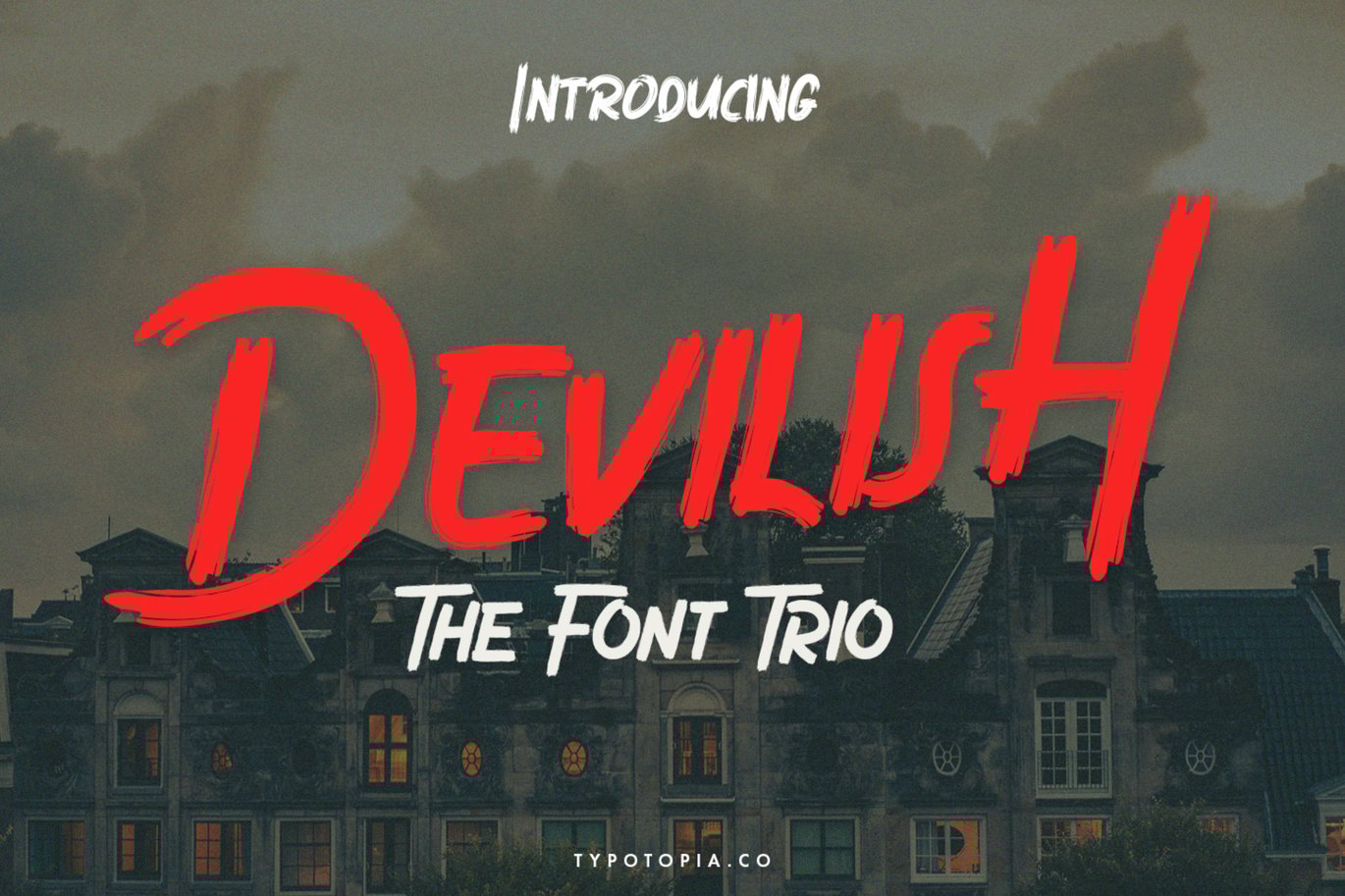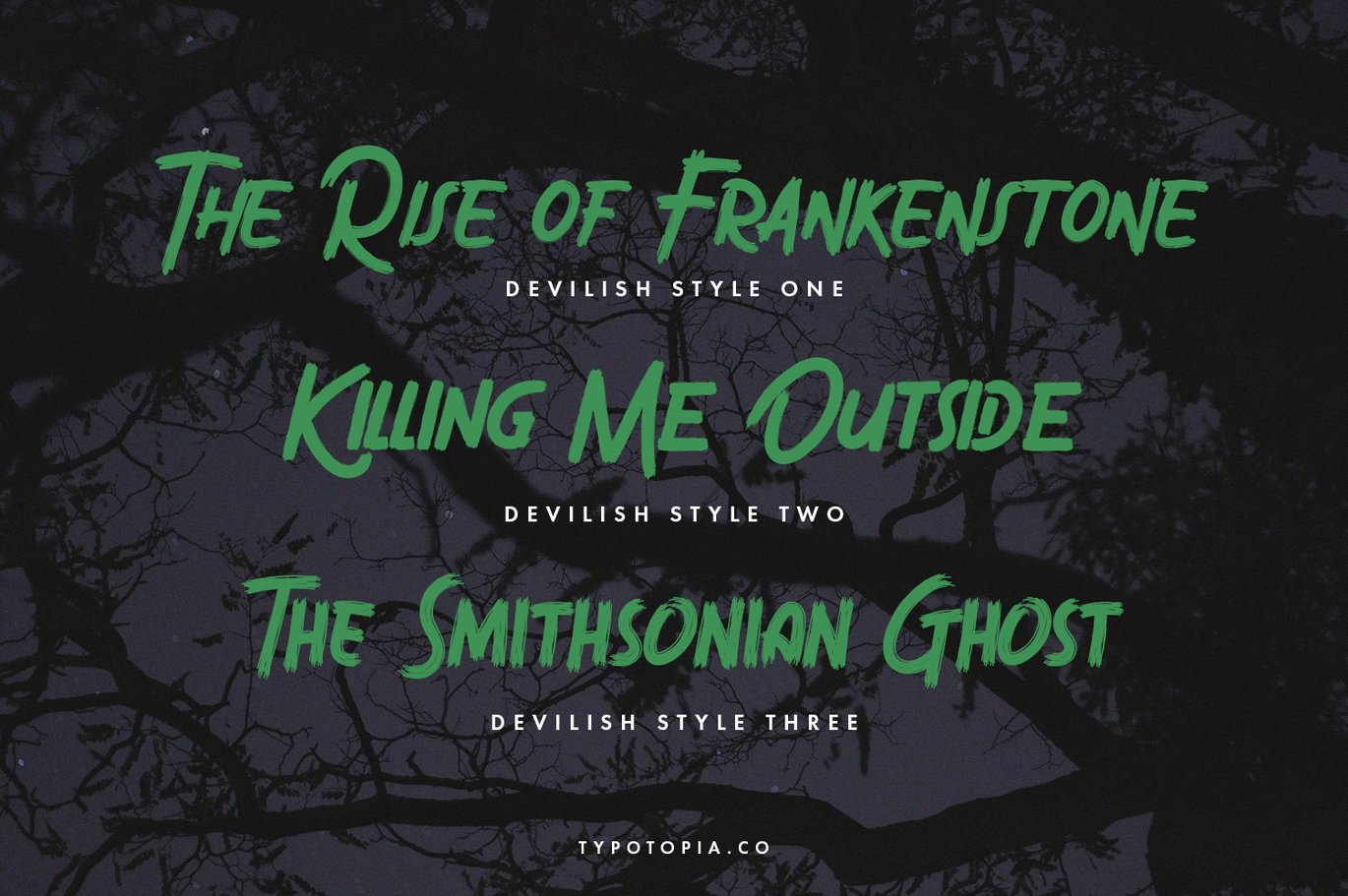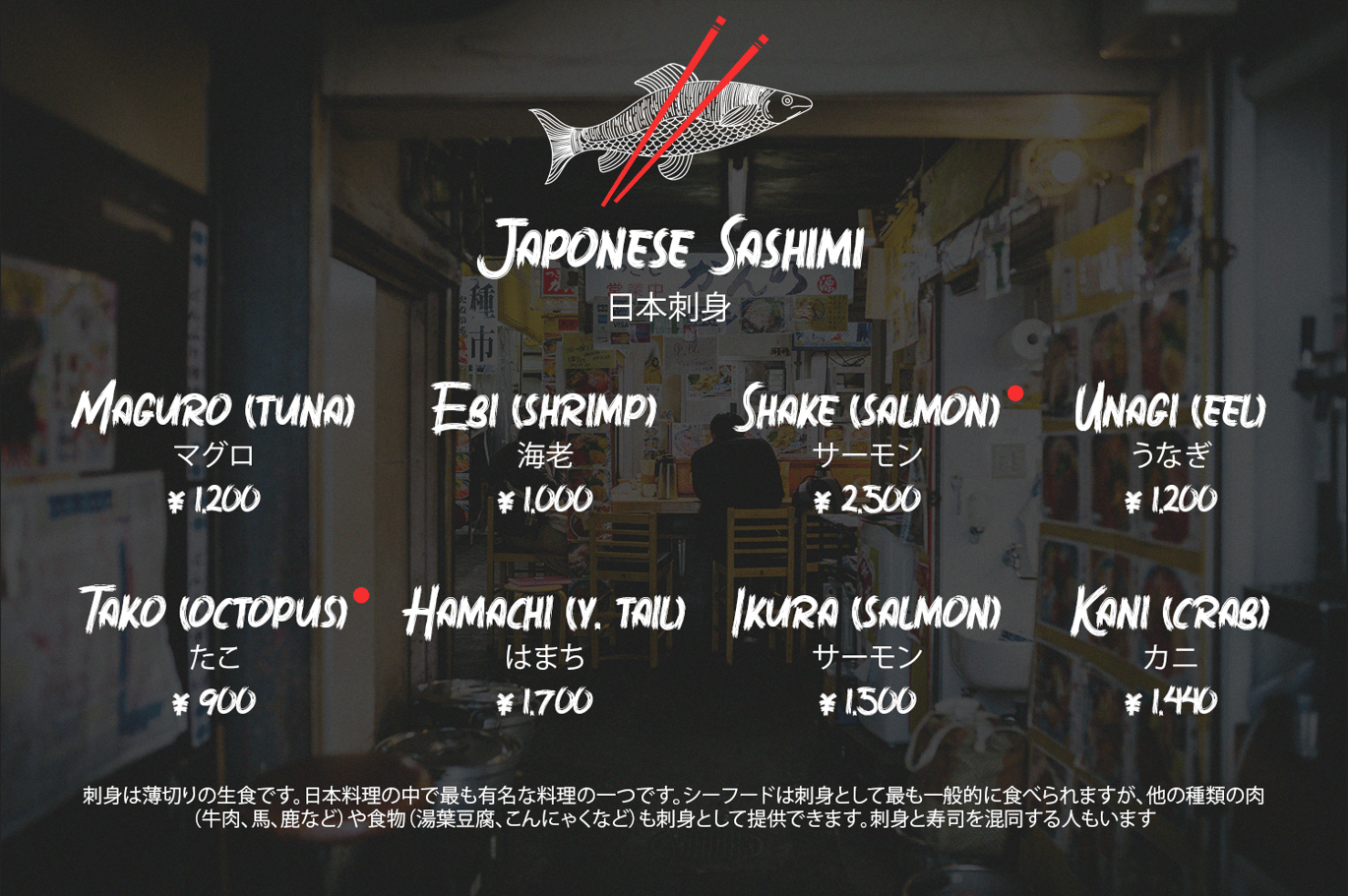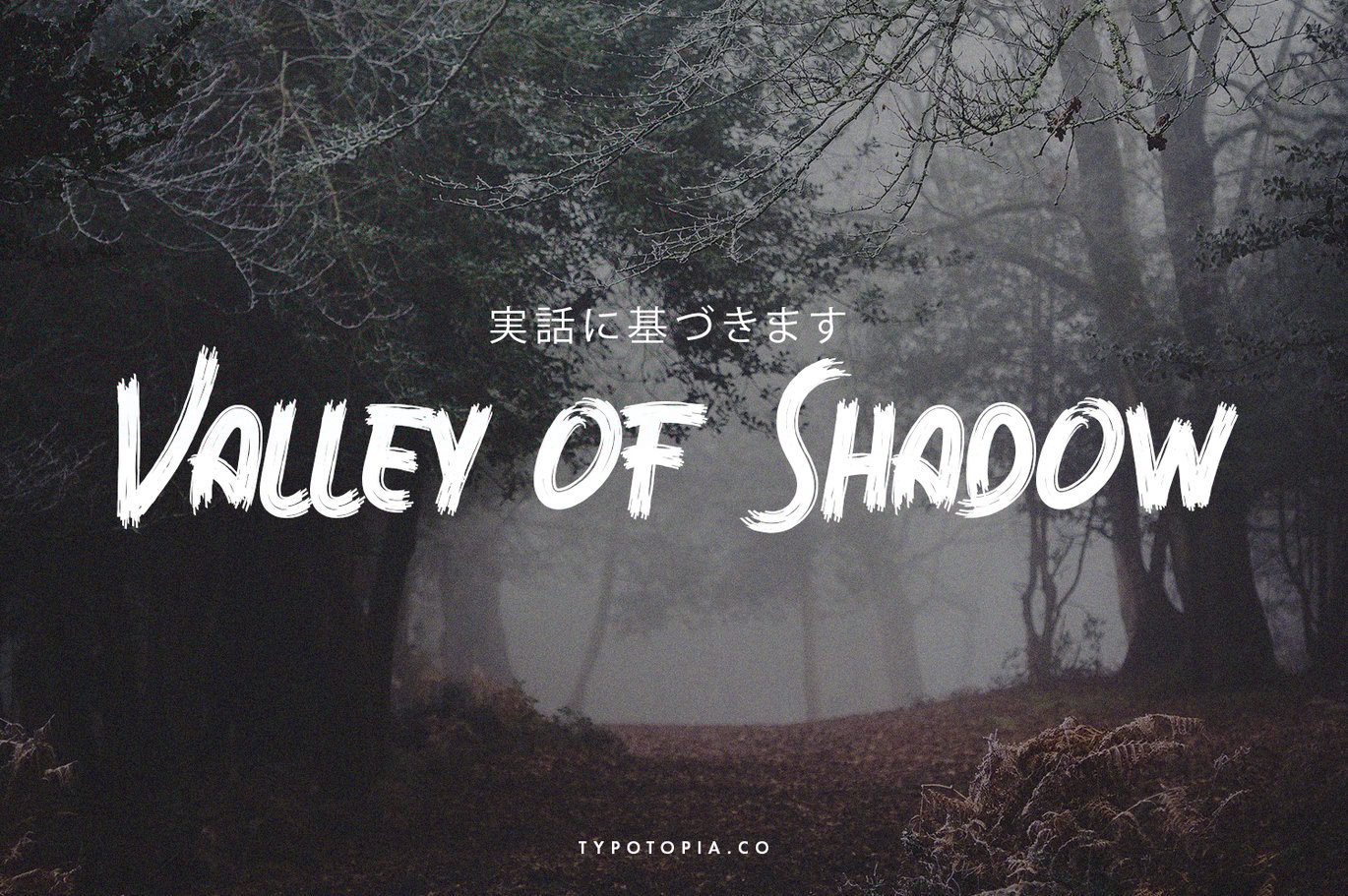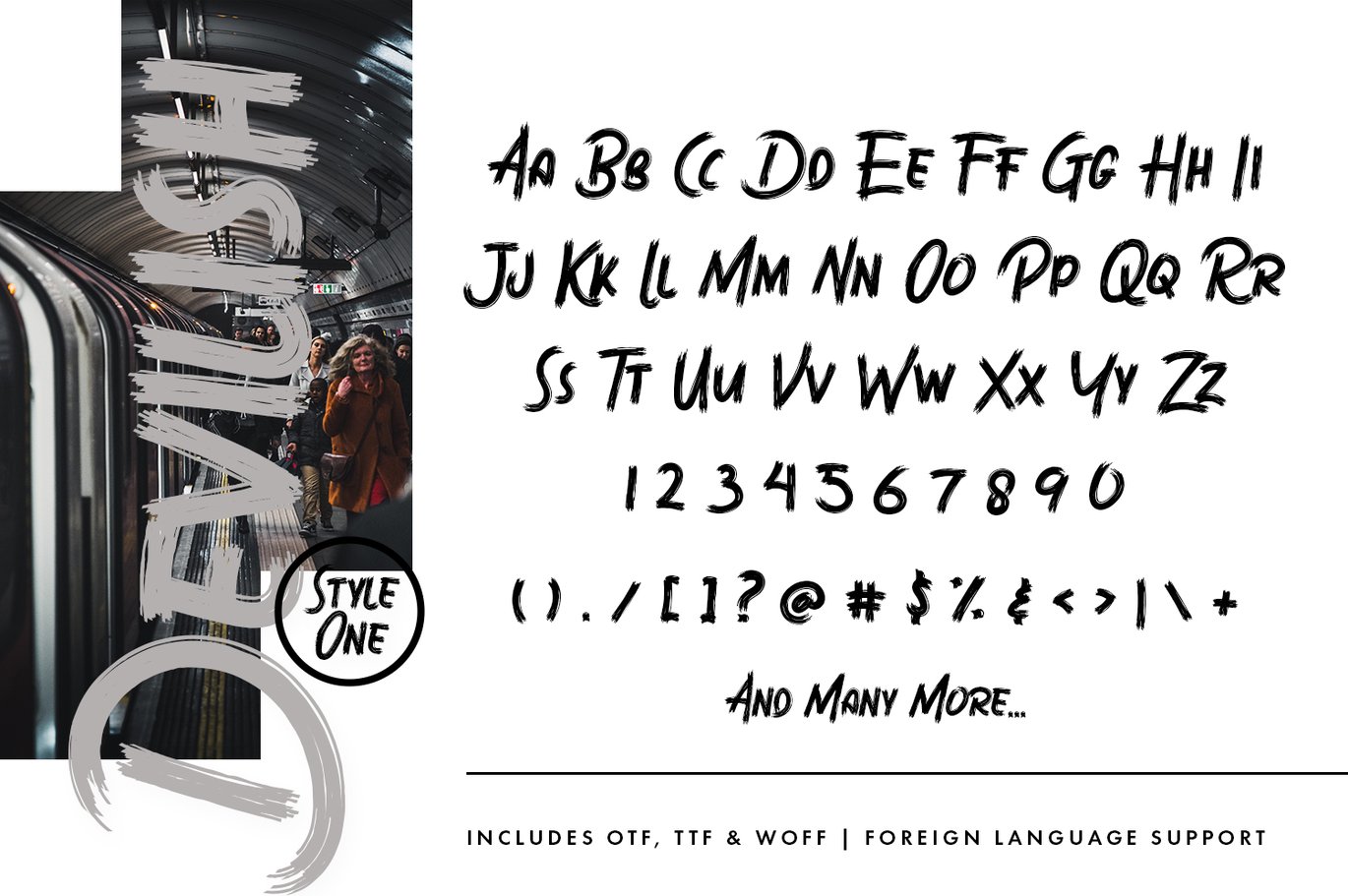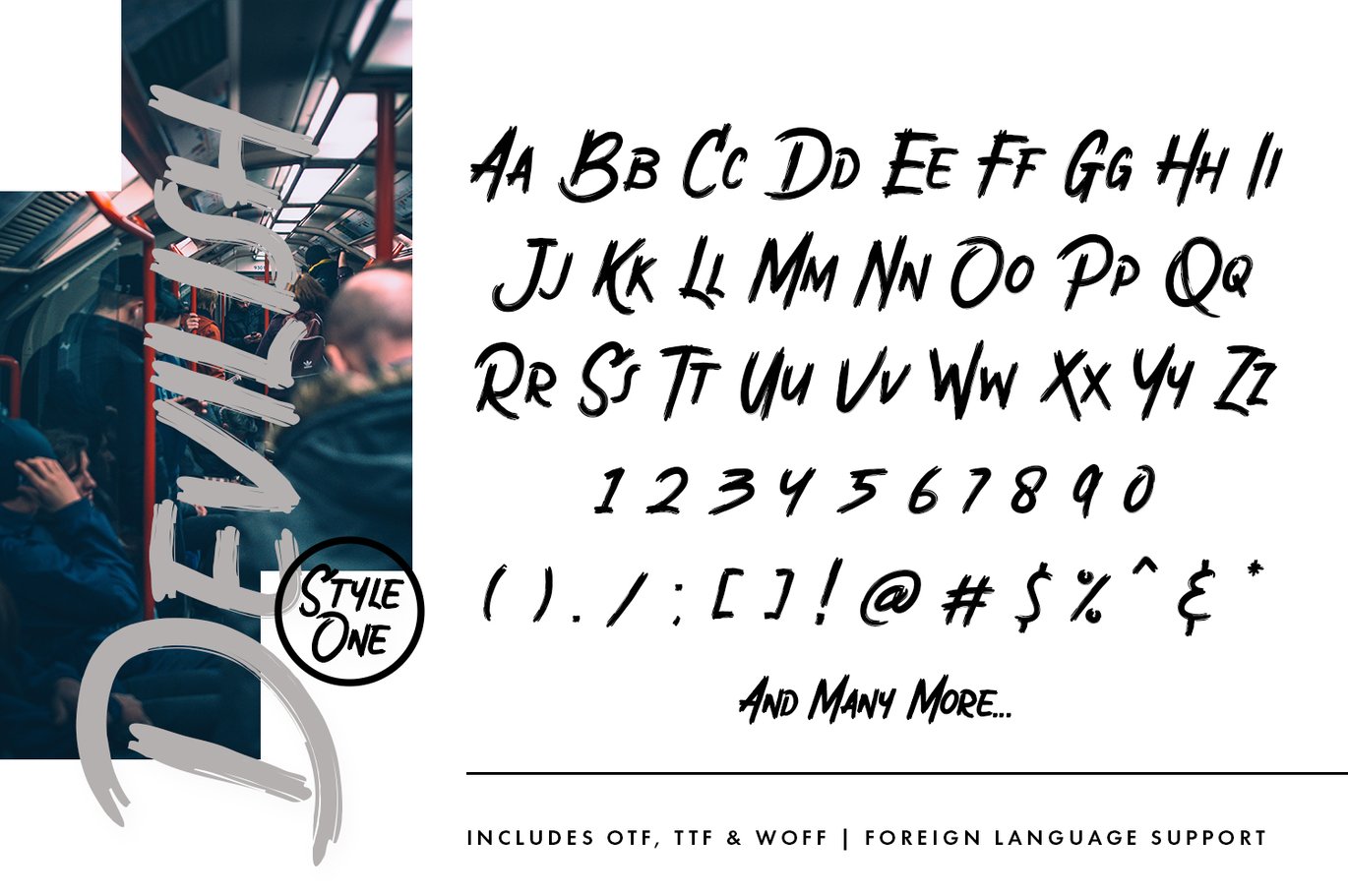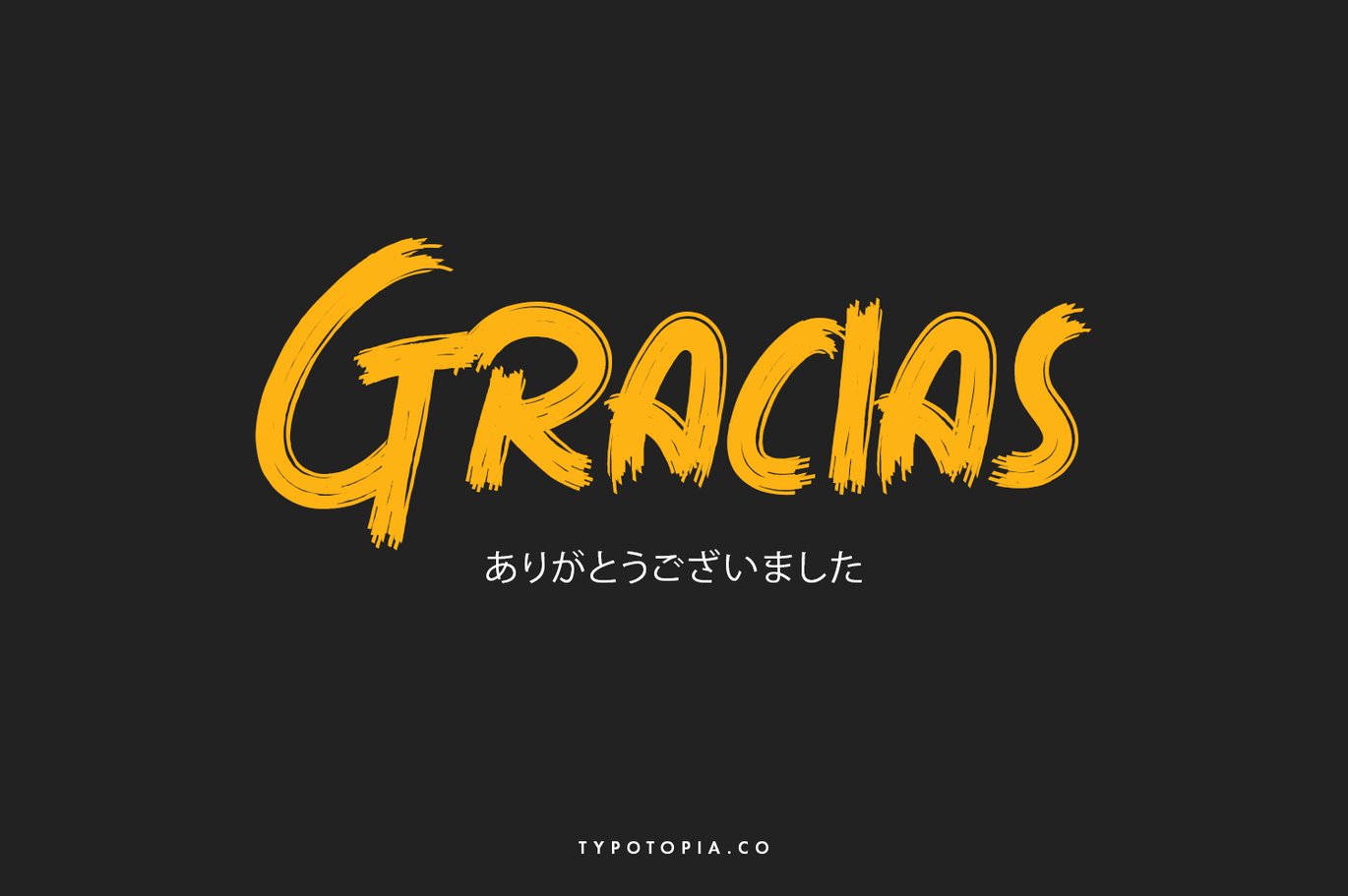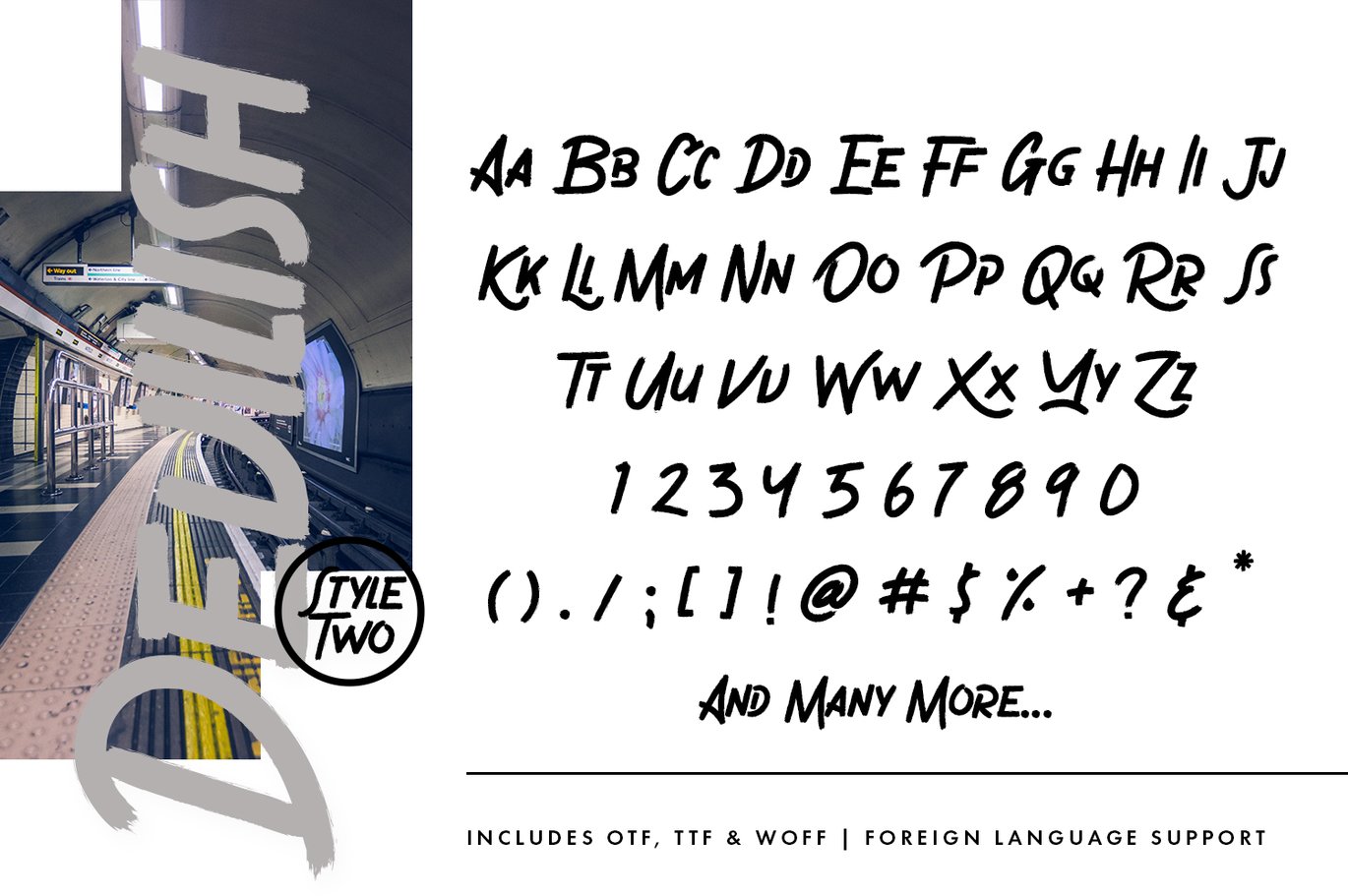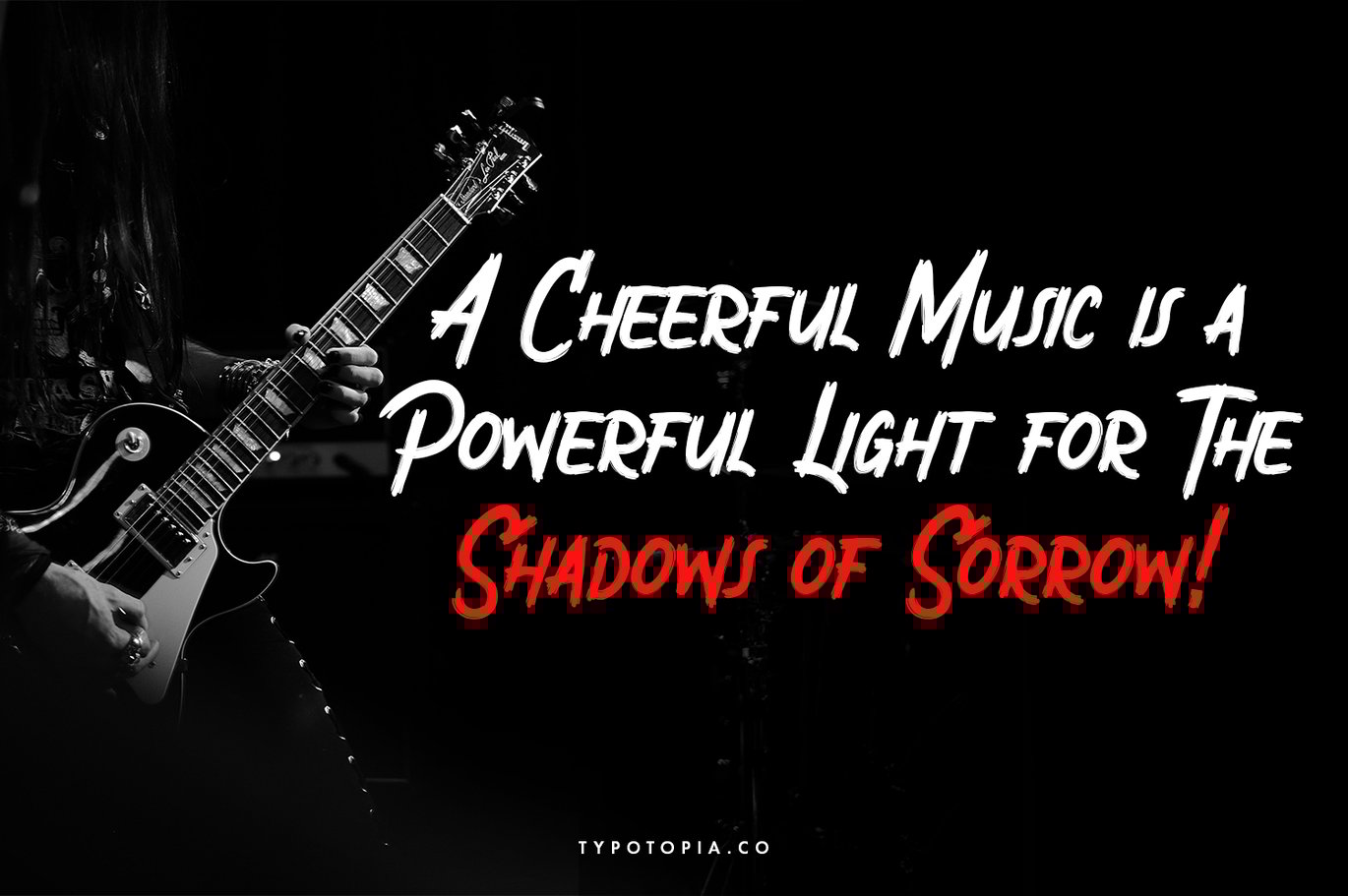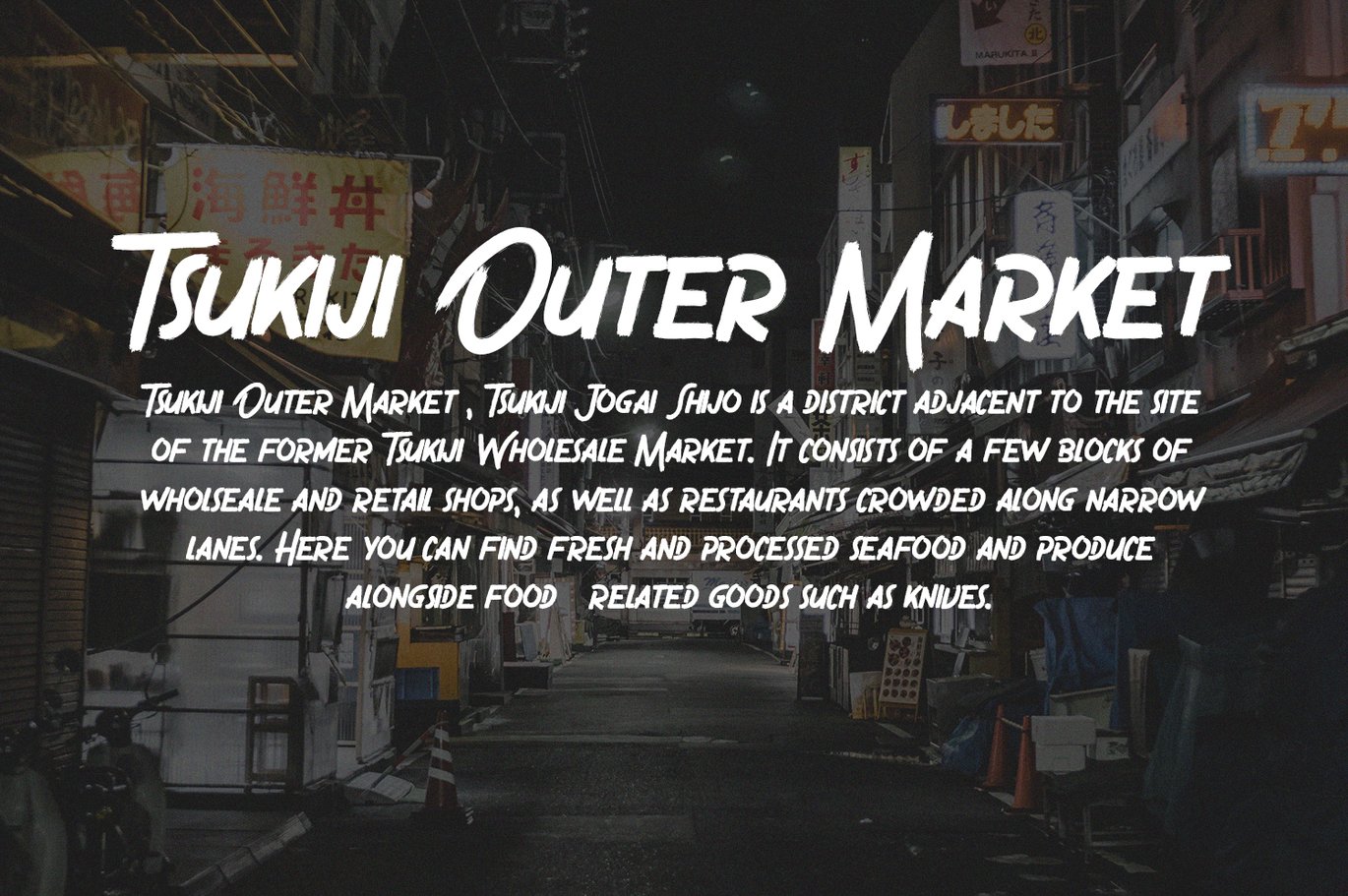
Devilish – The Font Trio
Introducing Devilish – The Font Trio an Incredibly Unique and Interesting Display Font for Your Designs. This perfect for the purposes of designing templates, brochures, videos, advertising branding, logos and more.